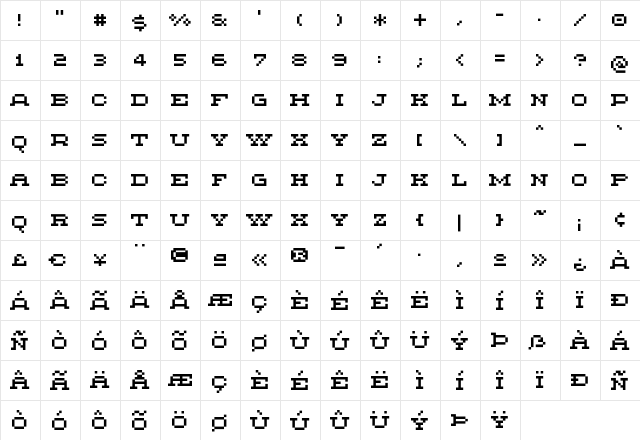
Methodic Medium Font Preview
Methodic Medium
Design Context for Methodic Typeface
Methodic is a composed and adaptable typeface that performs quietly and consistently across a wide range of design contexts.